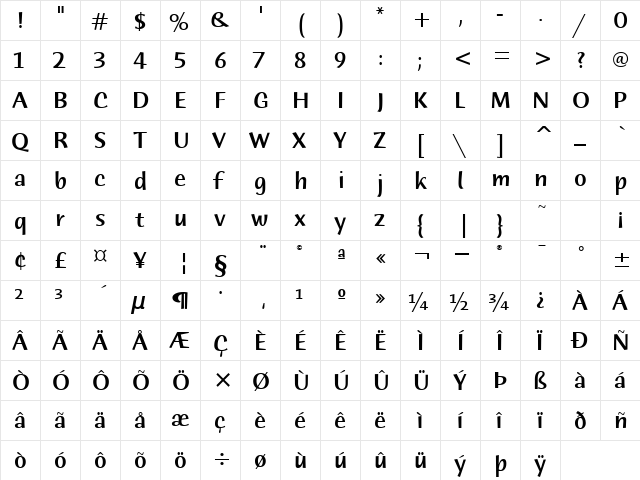
Humana Sans Md ITC TT Medium
Design Context for Humana Sans Md ITC TT Typeface
Humana Sans Md ITC TT takes a measured approach to typography — its balanced proportions and neutral character make it a reliable workhorse for both digital and print work.